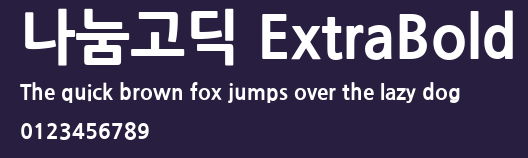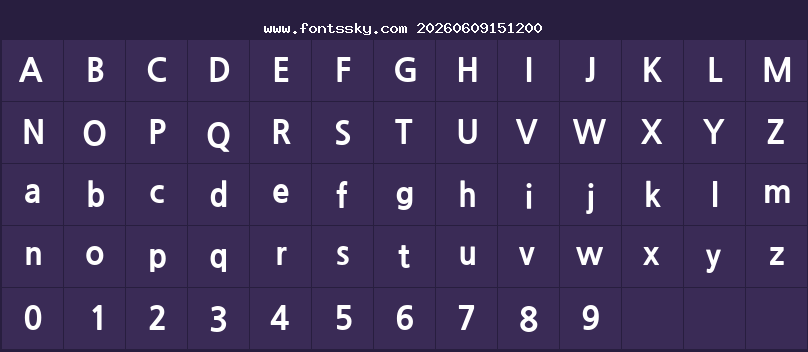
나눔고딕 ExtraBold Preview
• Font Name: 나눔고딕 ExtraBold
• Full Font Name: 나눔고딕 ExtraBold
• Designer: 권경석; 노영권; 최성우;
• Manufacturer: NHN Corporation
About 나눔고딕 ExtraBold.ttf
나눔고딕 ExtraBold.ttf is a modern, elegant sans-serif font designed for ultimate readability and visual harmony. Perfect for branding, headlines, web design, and print materials.